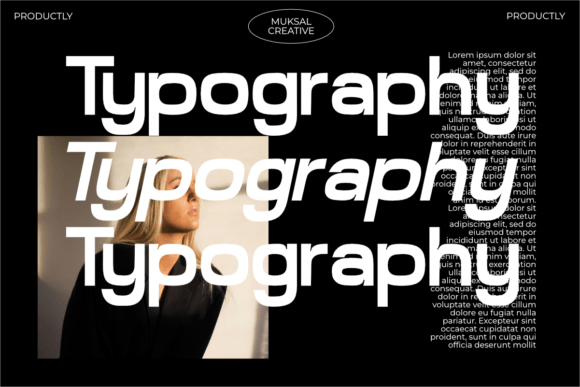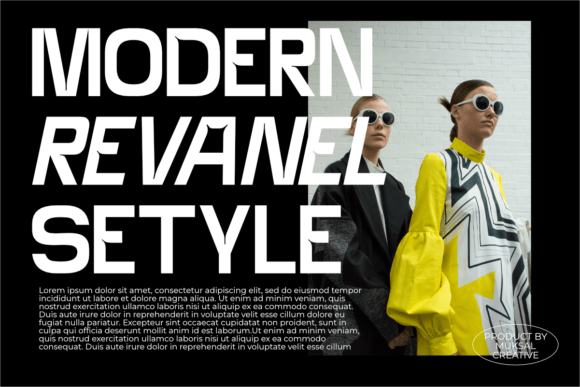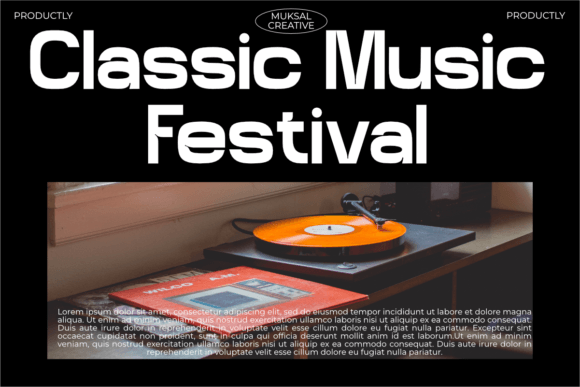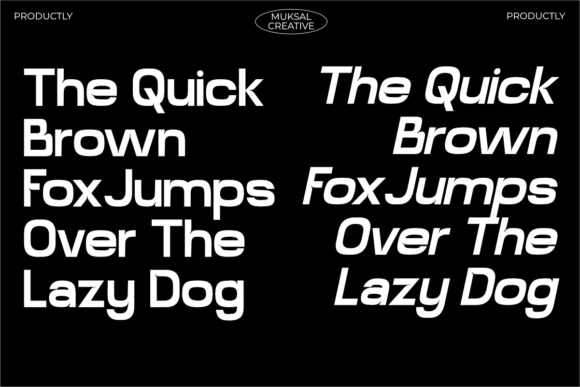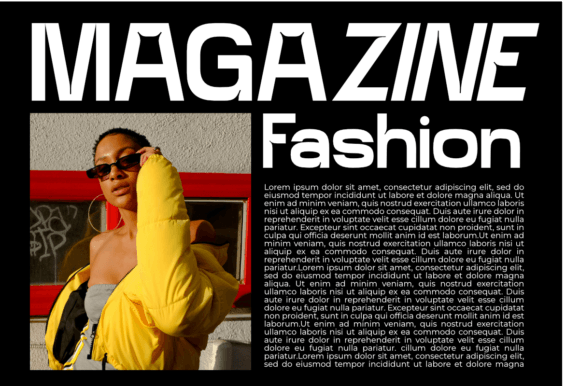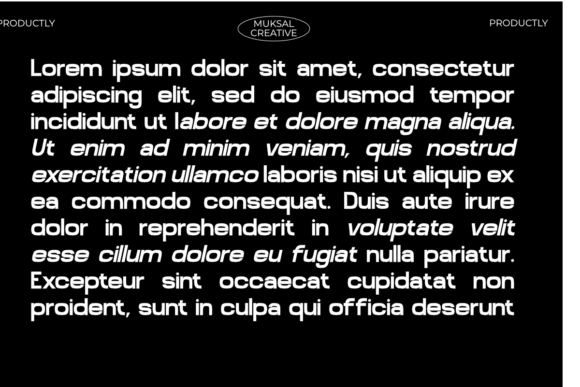
Introducing GeoForce Font: The Ultimate Choice for Bold and Modern Designs
In the world of typography, fonts play a crucial role in conveying messages, expressing emotions, and creating visual impact. For designers and crafters looking for a font that embodies strength, power, and dynamism, GeoForce is the perfect choice. This modern font is designed with bold geometric elements, precise shapes, and a thickness that exudes confidence and energy. In this article, we’ll explore the features and benefits of GeoForce font, and how it can elevate your designs to the next level.
Key Characteristics of GeoForce Font
GeoForce font is characterized by its strong and modern design, making it ideal for projects that require a futuristic and daring look. The font’s bold geometric elements, precise shapes, and varying thickness create a sense of depth and visual interest. The structured and precise shapes of GeoForce convey a sense of strength and stability, making it perfect for delivering messages in an efficient and eye-catching manner.
Perfect for Tech Branding, Posters, and Graphic Designs
GeoForce font is particularly suited for tech branding, posters, and graphic designs that require a strong visual impact. The font’s modern and bold design makes it perfect for:
- Tech branding: Create a lasting impression with a font that conveys innovation, power, and dynamism.
- Posters: Grab attention with a bold and eye-catching font that communicates your message effectively.
- Graphic designs: Add a touch of modernity and sophistication to your designs with a font that exudes strength and stability.
Benefits of Using GeoForce Font
Using GeoForce font in your designs offers several benefits, including:
- Unique and memorable designs: GeoForce font helps you create designs that stand out from the crowd and leave a lasting impression.
- Improved readability: The font’s precise shapes and varying thickness ensure that your message is communicated clearly and efficiently.
- Versatility: GeoForce font can be used in a variety of design contexts, from digital to print, and can be easily paired with other fonts to create a unique look.
- Time-saving: With GeoForce font, you can create professional-looking designs quickly and easily, saving you time and effort.
Tips for Using GeoForce Font Effectively
To get the most out of GeoForce font, here are some tips to keep in mind:
- Use it sparingly: GeoForce font is bold and attention-grabbing, so use it sparingly to avoid overwhelming your design.
- Pair it with complementary fonts: Combine GeoForce font with other fonts that complement its modern and bold design.
- Experiment with different sizes and colors: Play around with different sizes and colors to create visual interest and hierarchy in your design.
In conclusion, GeoForce font is a powerful and modern font that is perfect for designers and crafters looking to create bold and eye-catching designs. With its strong geometric elements, precise shapes, and varying thickness, GeoForce exudes strength, power, and dynamism. Whether you’re working on a tech branding project, poster, or graphic design, GeoForce font is the ultimate choice for delivering messages in an efficient and eye-catching manner.